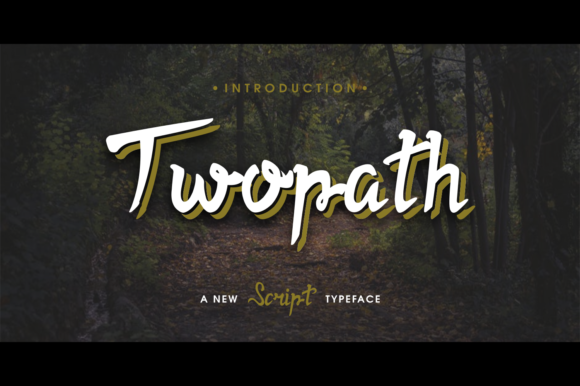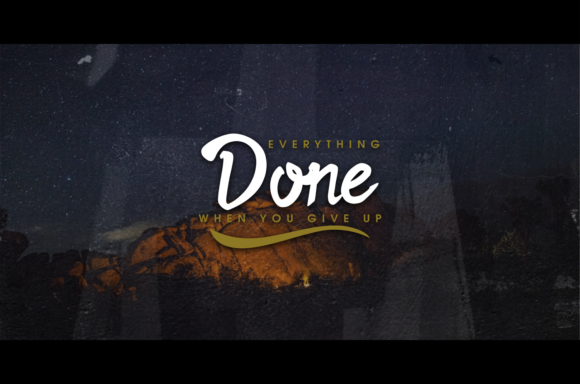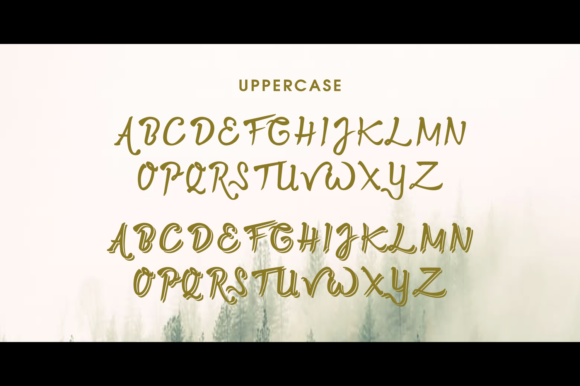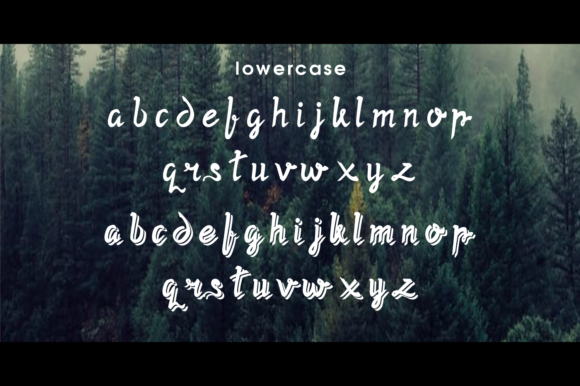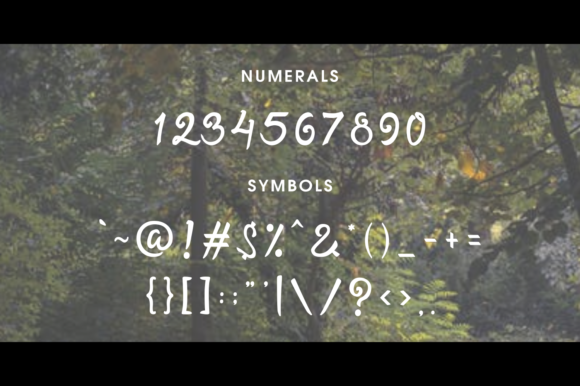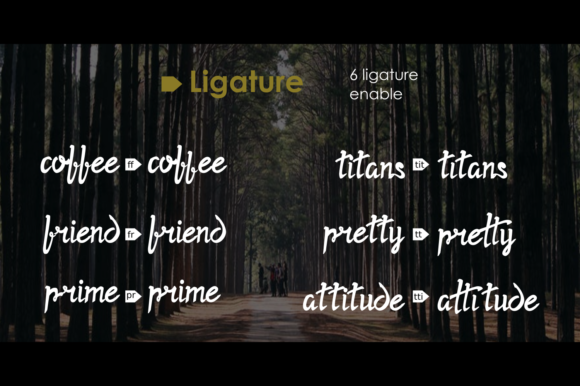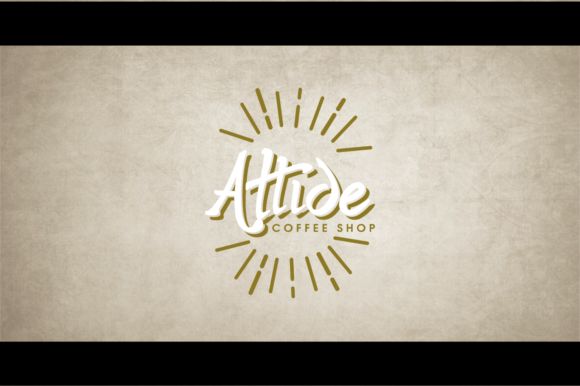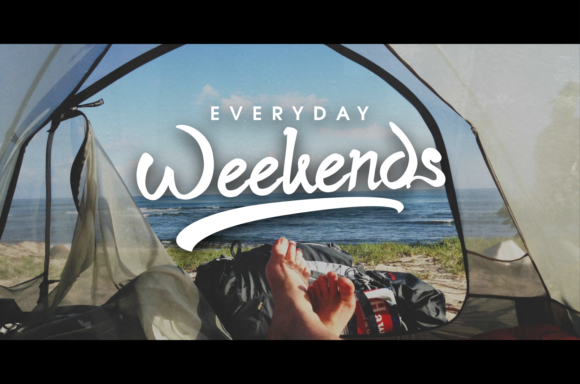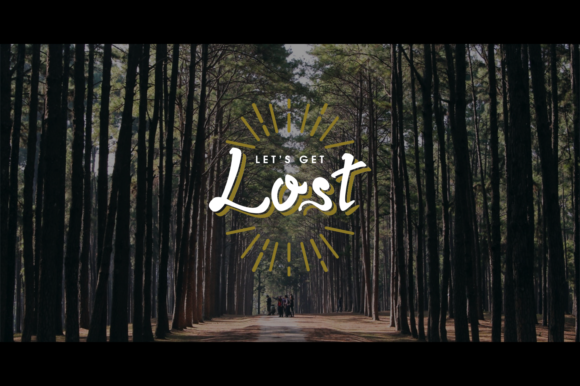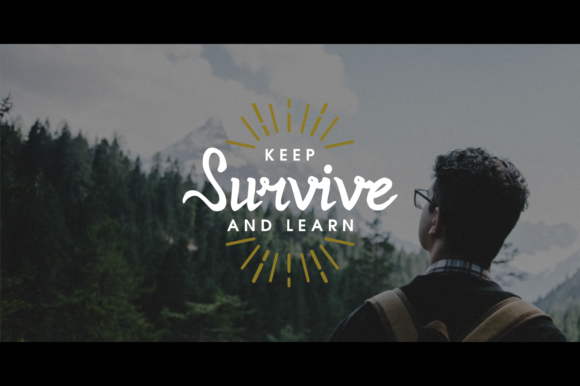
HomeScript FontsTwopath Font Script Fonts Twopath Font FacebookXPinterestWhatsApp Twopath Font Poster 2 Twopath Font Poster 3 Twopath Font Poster 4 Twopath Font Poster 5 Twopath Font Poster 6 Twopath Font Poster 7 Twopath Font Poster 8 Twopath Font Poster 9 Twopath Font Poster 10 About Twopath Font Twopath is a classic handwritten font with a unique spark. Fall in love with its authentic charm! DOWNLOAD NOW People also explored Mama Bear Bonkers Font Gabriely Semi Bold Font Night of the Fireflies Font Baliga Font Ageitha Font Rachma Script Font Signalove Font Home Stay Font 388 0 TagsTwopath Font Previous articleAshaal Script FontNext articleMistery Font LEAVE A REPLY Cancel reply Comment: Please enter your comment! Name:* Please enter your name here Email:* You have entered an incorrect email address! Please enter your email address here Website: Save my name, email, and website in this browser for the next time I comment. Personal Use Free Quentin Personal Use Free Read more about this font White Rose Personal Use Free Read more about this font Hiters Personal Use Free Read more about this font Round Geometric Personal Use Free Read more about this font BLOG Top 10 Handwritten Fonts That Elevate Your Designs Top 10 Handwritten Fonts That Will Elevate Your Designs Handwritten fonts bring a warm, personal touch to every creative project. Whether you're designing logos, invitations,... The 10 Best Handwriting Fonts to Add Personality to Your Designs Using Fonts in Digital Marketing: Tips to Strengthen Your Brand Identity Free Fonts Risk: Why Free Fonts Can Be Dangerous for Designers